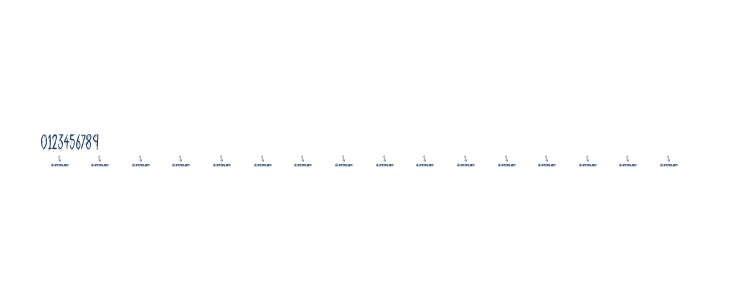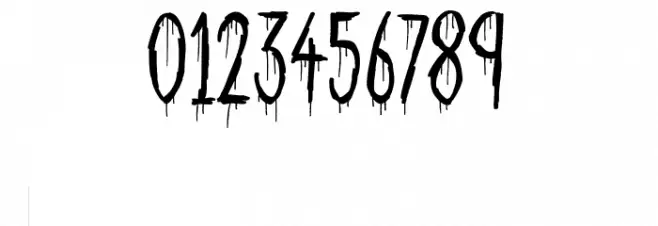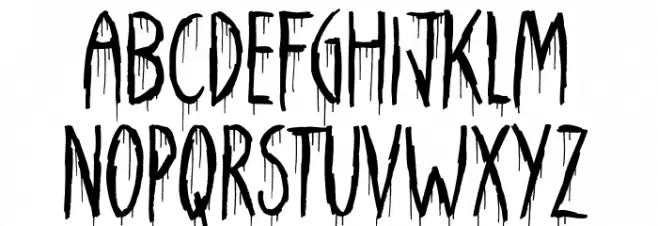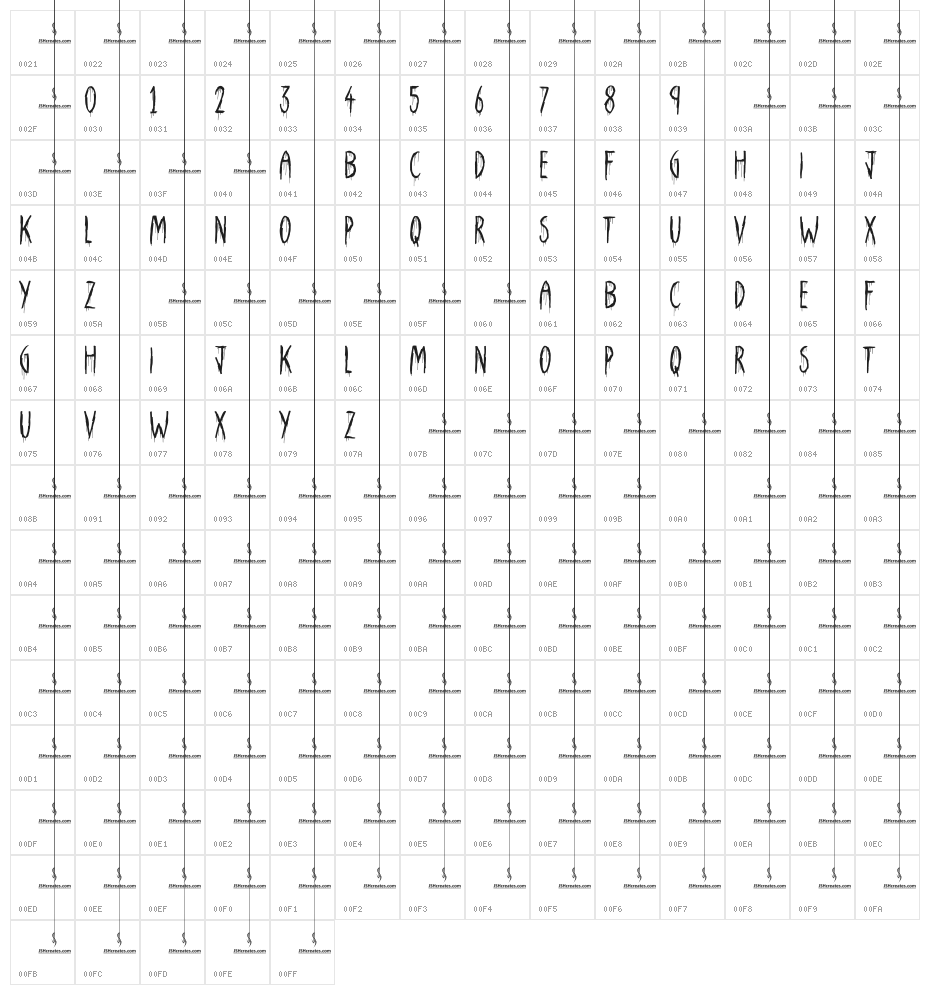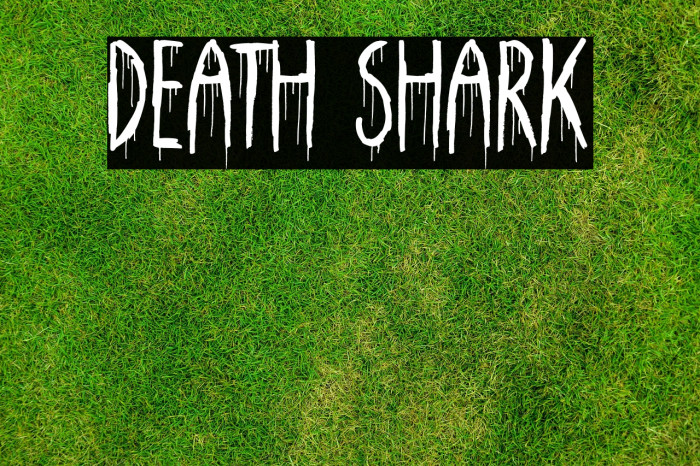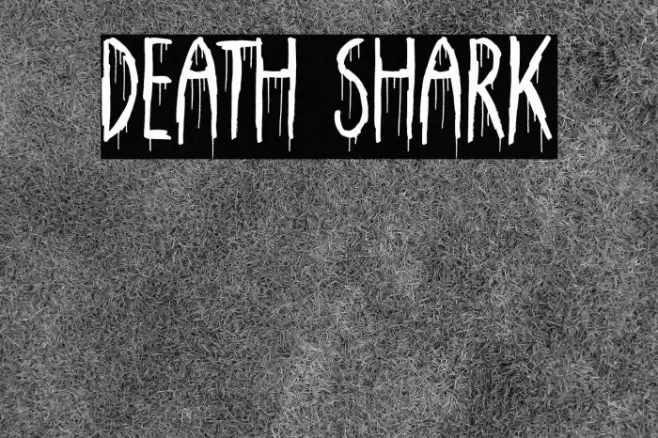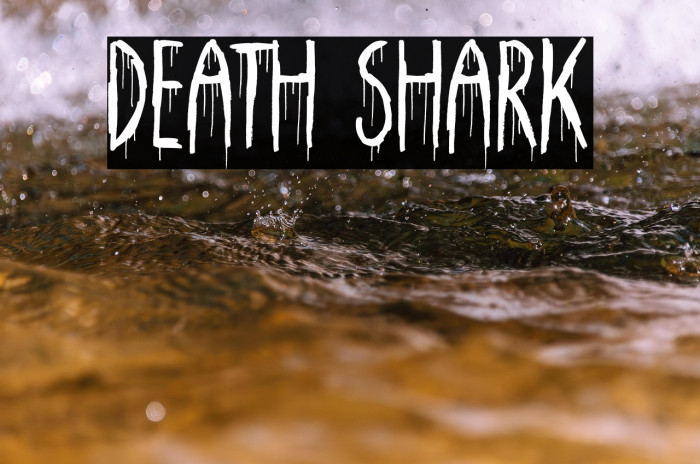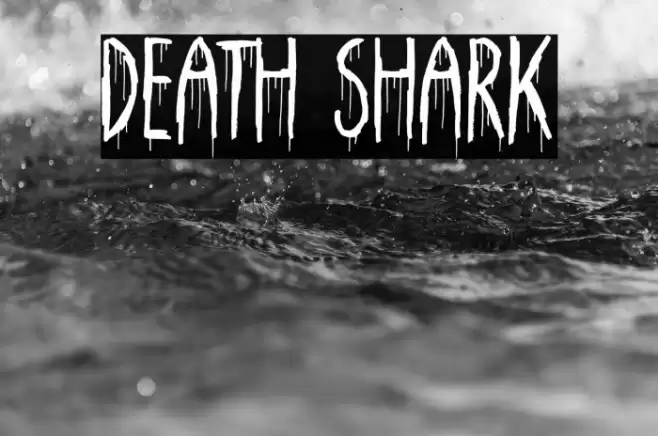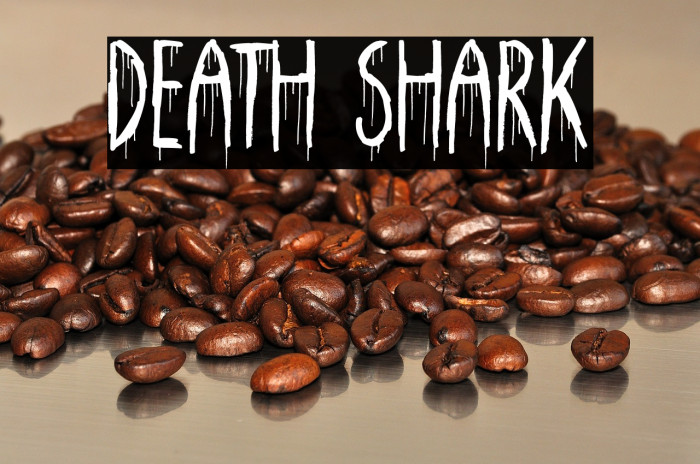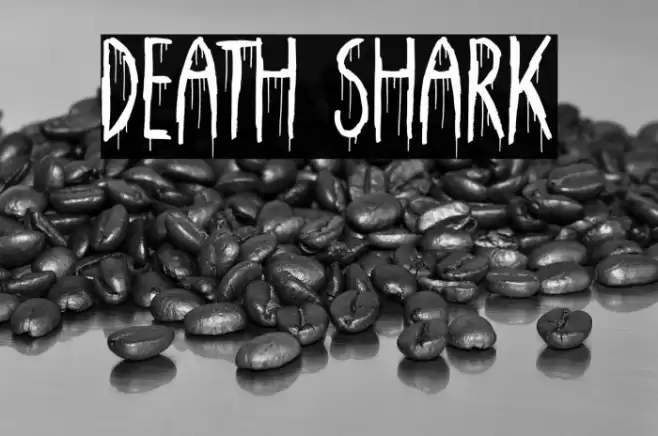
Death Shark Font
Death Shark Description
A decorative, horror-themed font with jagged, uneven strokes resembling scratch marks or torn paper edges.
| Overall Style | Horror, Distressed, Hand-drawn |